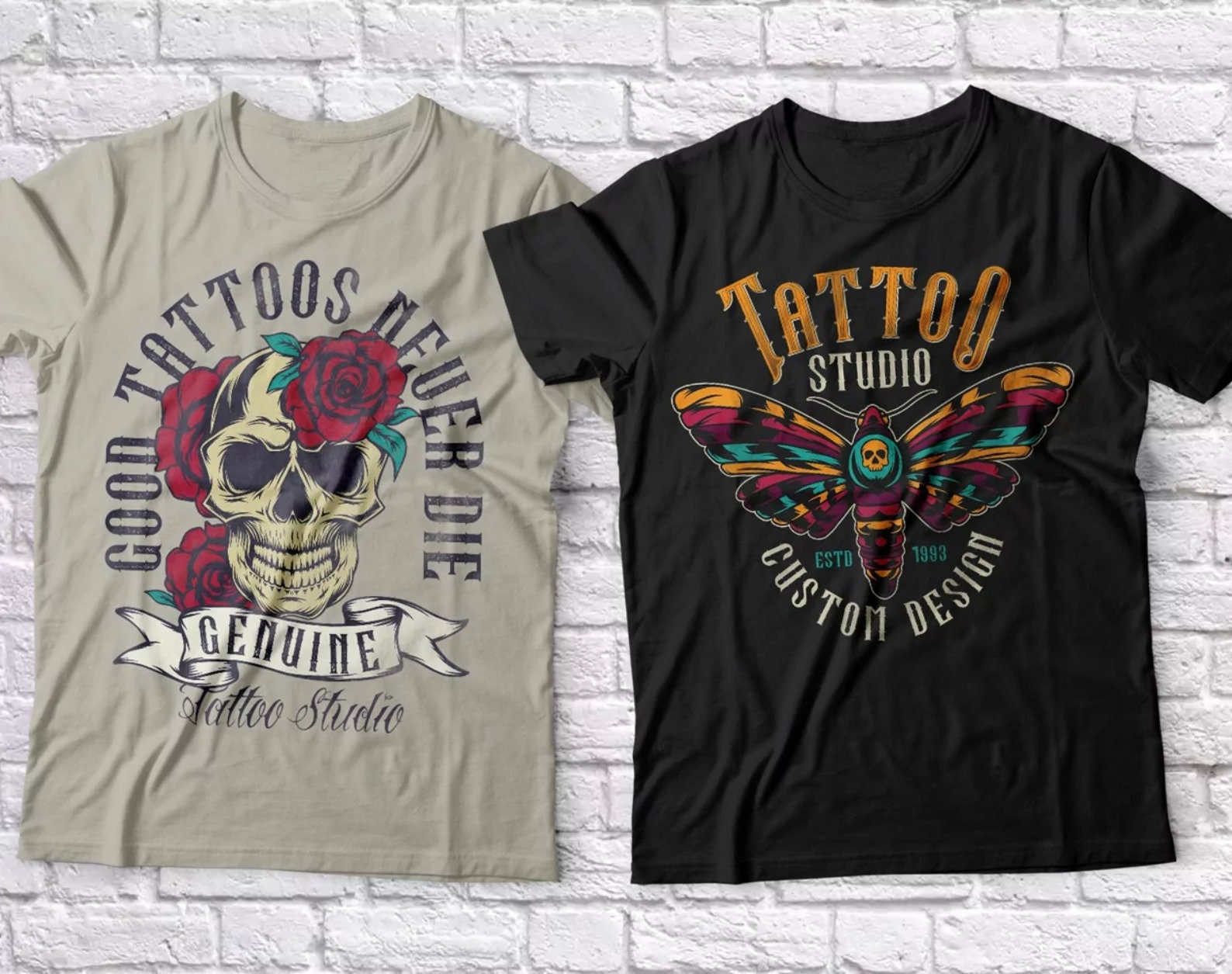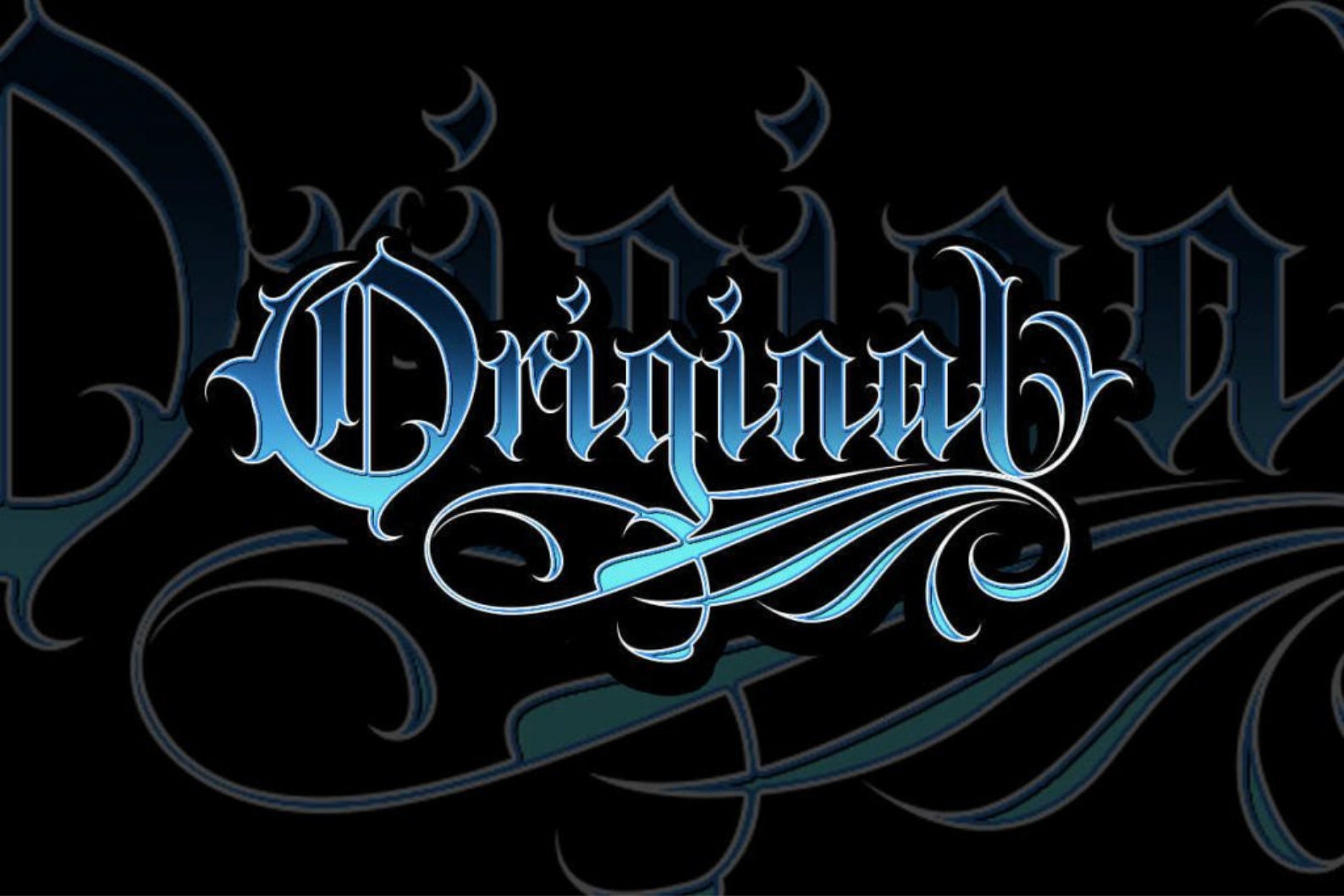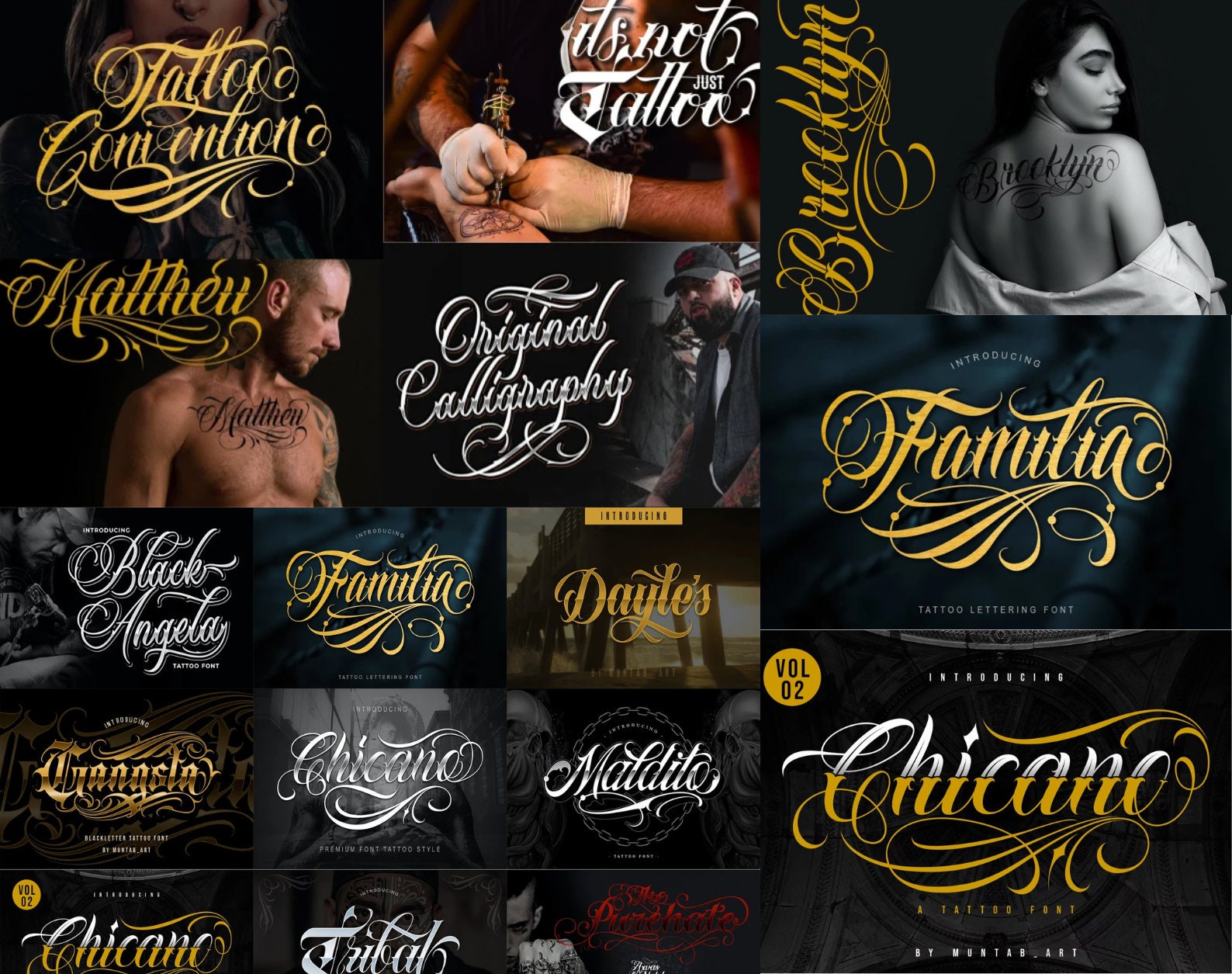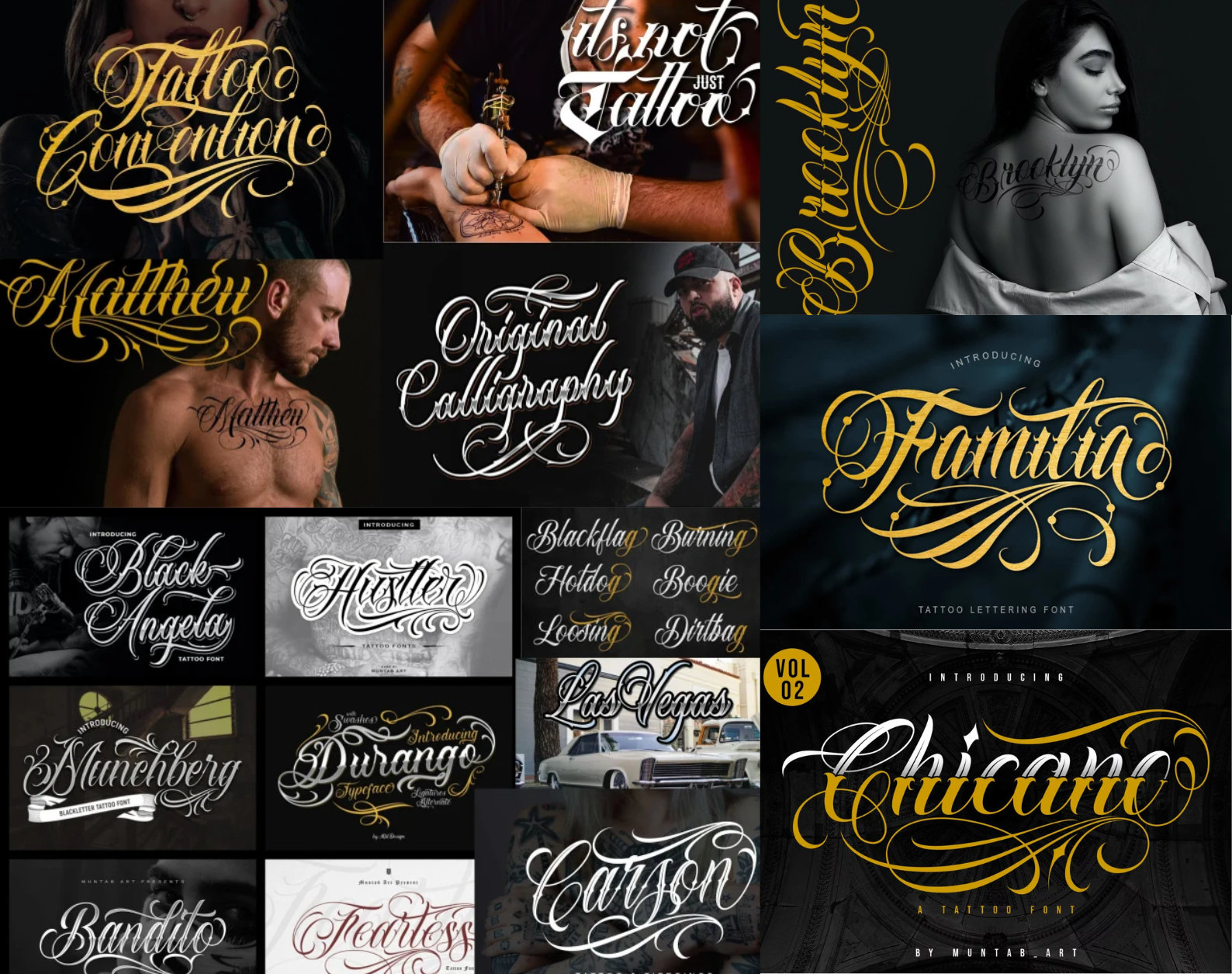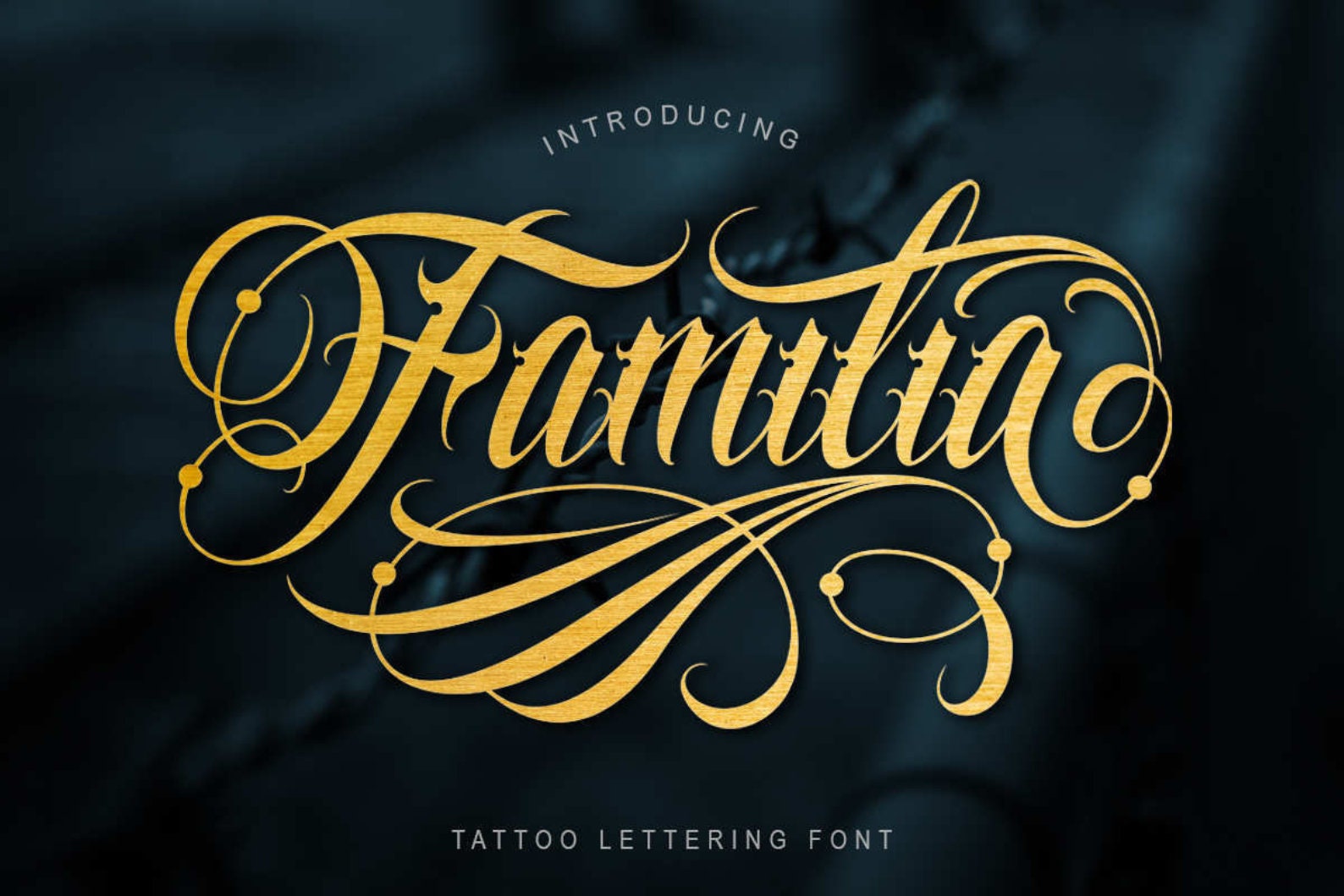
26 Premium Tattoo Font Bundle: Blackletter, Chicano Scripts & Logo Lettering for Photoshop and Procreate
Unlock bold, ink-inspired design with the 26 Premium Tattoo Font Bundle—a power-packed collection of tattoo-style typefaces crafted for artists, designers, and creators who want impact. From gritty blackletter to flowing Chicano script, this curated set delivers professional-grade lettering for logos, apparel, posters, signage, and tattoo mockups. Whether you design in Photoshop, Procreate, Illustrator, or cutting software, these fonts are optimized for smooth performance and stunning results.
Inside the bundle, you’ll find a versatile range of styles designed to elevate your typography. Create barbershop branding with Black Angela’s strong strokes, add elegance with Carpellon’s ornate script flourishes, or channel street-art energy with the Chicano Tattoo fonts (including Volume 02). Familia brings meticulous detail for standout lettering, while Dayles Script adds graceful swashes and alternates for a handcrafted feel. Prefer a darker, bolder vibe? Gangsta Typeface combines blackletter power with classic tattoo ornaments, and Maldito delivers expressive ligatures and stylish end swashes. For edgy visuals, Martyr sets the tone for posters and logo marks, and the Tribal Font merges blackletter and script for a unique hybrid look. Plus, you get 10 additional tattoo fonts to broaden your creative options.
This bundle is perfect for tattoo flash, logo artistry, apparel graphics, packaging, social media content, and personalized merchandise. If you want to add authenticity, attitude, and craft to your typography, this collection delivers. Install quickly, design confidently, and bring your concepts to life with letterforms that tell a story.